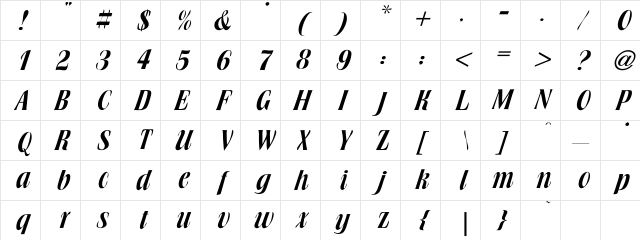
Brochure-Normal Regular
Design Context for Brochure-Normal
Brochure-Normal is a composed and adaptable typeface that performs quietly and consistently across a wide range of design contexts.